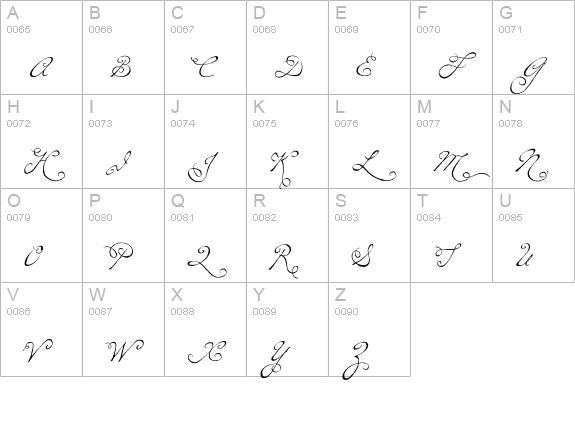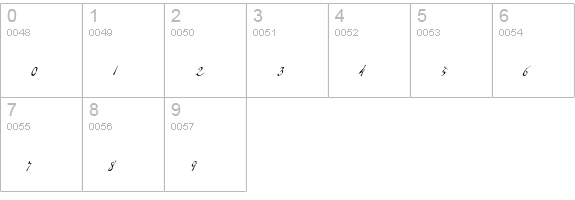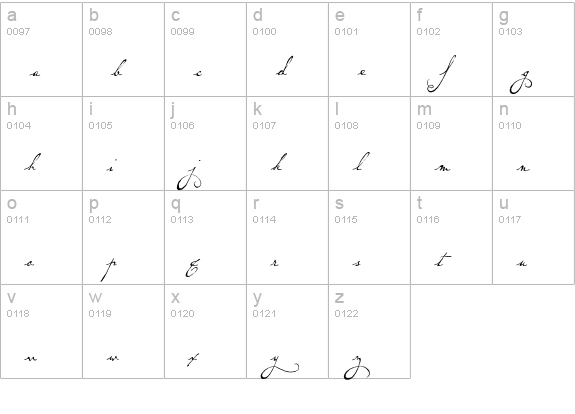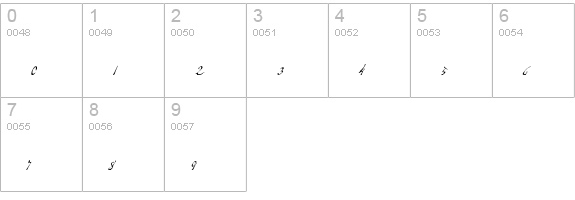
P22DearestSwash Font Details
P22DearestSwash is a mesmerizing and elegant font that exudes a sense of sophistication and charm. Designed with intricate details and delicate curves, this font is perfect for adding a touch of grace to any design project. With its graceful swashes and exquisite letterforms, P22DearestSwash captures the essence of timeless beauty. Each character has been meticulously crafted to showcase the utmost attention to detail, resulting in a font that is both visually stunning and highly legible. P22DearestSwash is not only visually appealing, but it also offers a sense of versatility. Whether you're designing invitations for a formal event, creating a logo for a high-end brand, or simply adding a touch of elegance to your personal projects, this font is sure to impress. What makes P22DearestSwash even more appealing is that it is freely available to download at FontsMarket.com. By offering this font for free, it allows designers and creatives to access its beauty and versatility without any barriers. So, if you're searching for a font that effortlessly combines elegance and functionality, look no further than P22DearestSwash. Its timeless appeal and freely available nature make it a must-have in any designer's toolkit. Head over to FontsMarket.com and download this extraordinary font today.